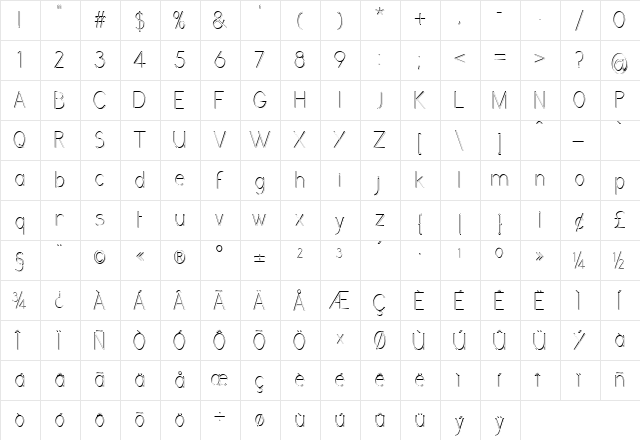
GrutchGroteskShaded Condensed Light
| Foundry | Steeve GRUSON |
| Designer | Steeve GRUSON |
Design Context for GrutchGroteskShaded Typeface
GrutchGroteskShaded has the quiet confidence of well-executed sans-serif typography: versatile, unobtrusive, and dependable at any size. The delicate stroke weight brings airiness and refinement to layouts. Its narrow stance lets it pack a punch even in space-constrained designs.
Ideal for fashion and beauty branding, minimal editorial layouts, and premium digital experiences.
Font Pairing: Pair GrutchGroteskShaded with a medium or bold serif for headlines — the weight contrast creates an elegant, high-end feel.
Pro Tip: Try GrutchGroteskShaded in all-caps with moderate tracking for navigation and label copy — it performs well in systematic UI contexts.